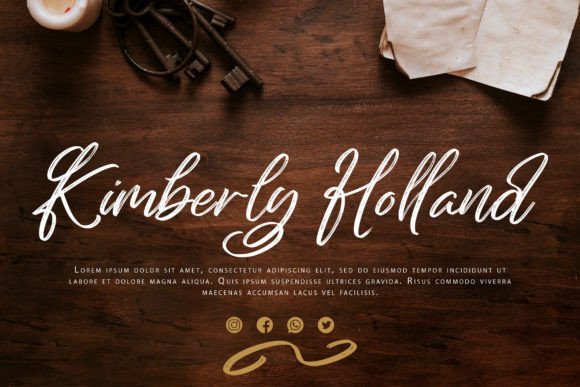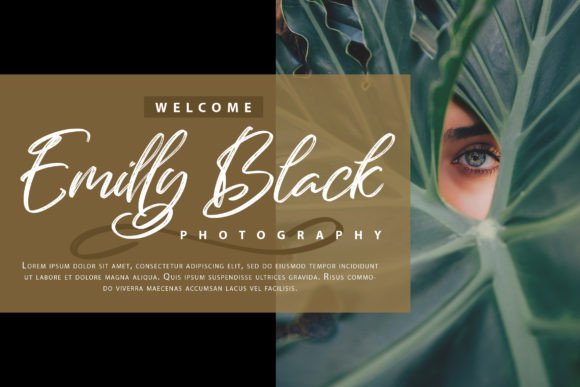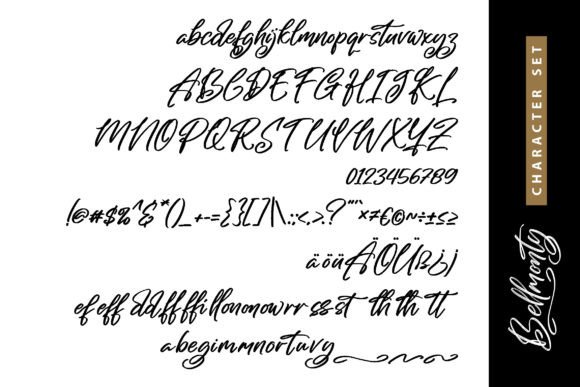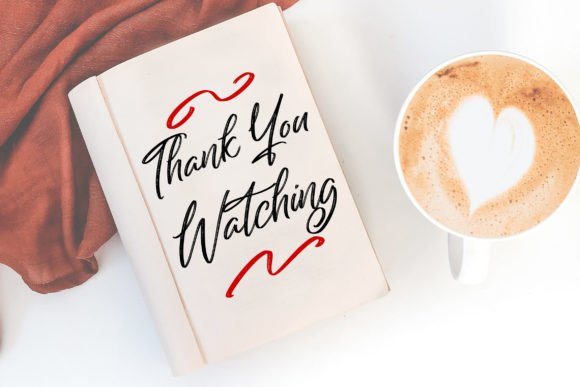
Bellmonty Font: Elevate Your Designs with Organic Beauty
In the world of typography, fonts play a crucial role in conveying the tone and aesthetic of a design project. For those seeking a natural and effortless look, the Bellmonty font is an excellent choice. This stunning cursive script font is designed to add a touch of organic beauty to any design, making it perfect for a wide range of applications.
The Characteristics of Bellmonty Font
Bellmonty is a natural and flowing cursive script font that boasts gentle curves and soft lines. These characteristics evoke a sense of harmony and serenity, making it an ideal choice for designers who want to create a soothing visual experience. The font’s organic feel is reminiscent of handwriting, giving it a personal and approachable touch.
The versatility of Bellmonty font makes it suitable for a variety of design projects. Whether you’re designing a logo, creating wedding stationery, or working on a branding project, this font is sure to impress. Its natural and effortless look makes it an excellent choice for:
• Logo design and branding
• Packaging design
• Advertising and marketing materials
• Digital and print media
One of the standout features of Bellmonty font is its PUA (Private Use Area) encoding. This means that you can access all the delightful glyphs and swashes effortlessly, giving you greater creative control over your design. With PUA encoding, you can easily insert special characters, ligatures, and swashes to add a personal touch to your project.
Bellmonty font offers numerous benefits for designers and crafters. Some of the advantages of using this font include:
• Unique and distinctive look: Bellmonty font’s organic feel sets it apart from other fonts, giving your design a unique and distinctive look.
• Easy to read: The font’s gentle curves and soft lines make it easy to read, even at smaller sizes.
• Versatile: Bellmonty font can be used for a wide range of design projects, from logos to wedding stationery.
• Time-saving: With PUA encoding, you can access all the glyphs and swashes easily, saving you time and effort.
Tips for Using Bellmonty Font
To get the most out of Bellmonty font, here are some tips to keep in mind:
• Pair it with contrasting fonts: Bellmonty font works well with contrasting fonts, such as bold sans-serif fonts.
• Experiment with sizes: The font’s gentle curves and soft lines make it suitable for a range of sizes, from large headings to smaller body text.
• Use it for emphasis: Bellmonty font’s unique look makes it perfect for emphasizing certain words or phrases in your design.
In conclusion, Bellmonty font is a stunning cursive script font that adds a touch of organic beauty to any design project. With its gentle curves and soft lines, it’s perfect for creating a natural and effortless look. The font’s PUA encoding makes it easy to access all the delightful glyphs and swashes, giving you greater creative control over your design. Whether you’re a designer or crafter, Bellmonty font is an excellent choice for a wide range of applications.